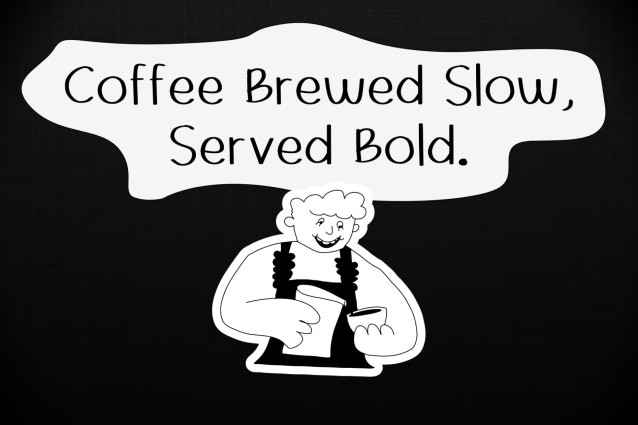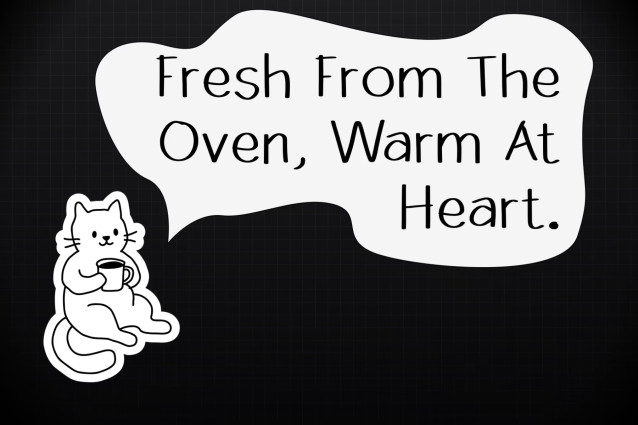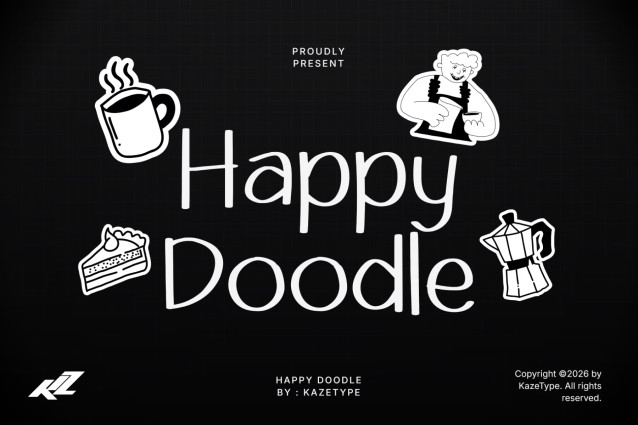
Happy Doodle — Playful Handwritten Font brings a fun handwritten vibe to your typography. The letters are soft, rounded, and expressive—great for anything that needs a warm, happy, approachable mood.
This font is designed for display use: titles, posters, stickers, social media graphics, packaging, and kids-themed designs. Beyond the alphabet, Happy Doodle also includes numbers, punctuation, and symbols, so you can build text compositions that feel complete and consistent.
Add personality to your layouts with a whimsical handwritten style that stands out instantly—whether you’re making greeting designs, playful branding, or cute promotional artwork.